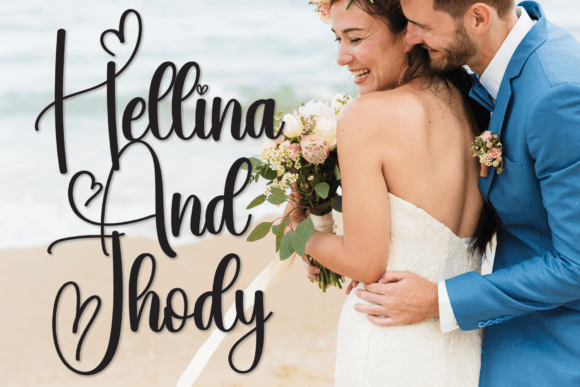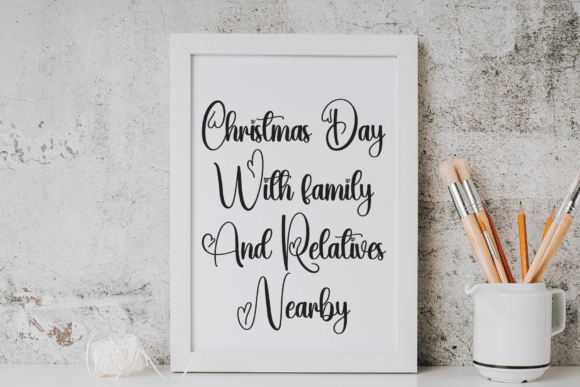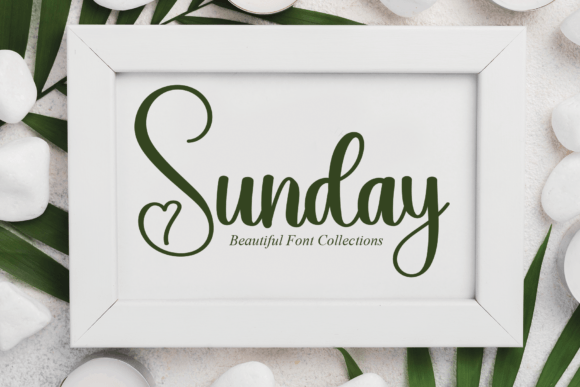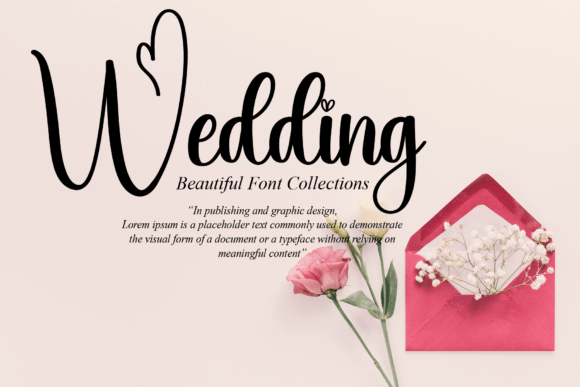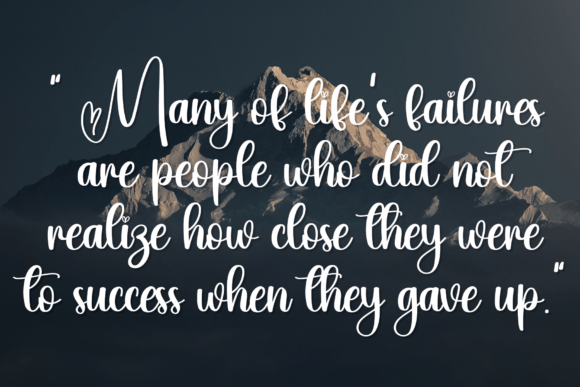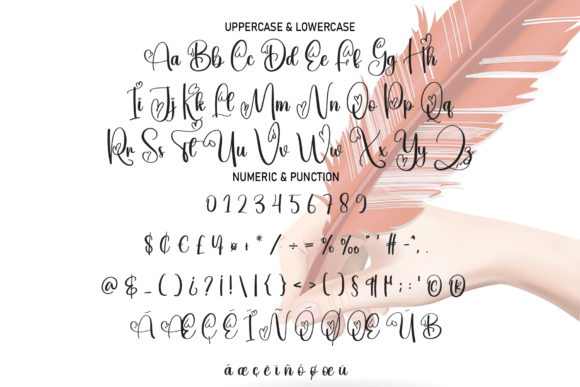
Introduction to Look out Font
Imagine you’re working on a creative project, pouring your heart and soul into every detail. You’ve finally found the perfect design resource – a font that captures the essence of your vision. This is where the Look out Font comes in – a modern and stylish handwritten script font that adds a touch of elegance to any project.
As designers, we’re always on the lookout for high-quality design resources that can elevate our work. With the Look out Font, you’ll have access to a balanced and varied font that’s not too thin and not too thick, making it perfect for a wide range of creative projects. Plus, with its transparent background, you can easily combine it with other design elements to create a stunning visual effect.
Key Features of Look out Font
- High-quality design resource with a unique and creative style, perfect for various projects.
- Features a transparent background, making it easy to use in different design scenarios.
- Designed to be scalable, with a resolution of 300 DPI and a size range of 12-72 points.
- Includes a wide range of characters, including uppercase and lowercase letters, numbers, and special symbols.
- Perfect for use in creative projects, such as logos, typography, and graphic design.
Honest Review: Look out Font
As a designer, I’m always on the lookout for high-quality design resources to elevate my creative projects. I recently stumbled upon the Look out Font, and I’m excited to share my honest review.
Here are some things that work well about the Look out Font: ✨
- High-quality design: The font is crisp and clear, making it perfect for use in various design contexts.
- Transparent background: The font has a transparent background, allowing for seamless integration with other design elements.
However, there are some limitations to consider: ⚠️
- Limited character set: The font only includes a limited character set, which may not be suitable for more extensive design projects.
- Not suitable for all devices: The font may not render consistently across all devices, which could lead to design inconsistencies.
Look out Font
Tips for Getting the Most Out of it
To get the most out of the Look out Font, use it with a transparent background to create visually appealing designs. Experiment with different font sizes and styles to add depth and interest to your project.
The Look out Font is commonly used in:
- Graphic design projects
- Branding projects
Comparison: While Lobster Font shares a similar cursive style with Look out Font, it’s more elegant and refined, making it suitable for more formal projects.
Great Vibes Font is a modern, elegant font suitable for a wide range of design projects, from website headers to book titles. It’s available for free download with a transparent background, making it easy to integrate into any design resource.
Yes, the Look out Font is designed with a transparent background, making it easy to use with any color or design element. This feature allows designers to create visually appealing and cohesive designs without any distractions.